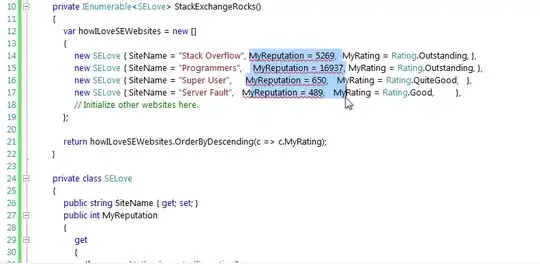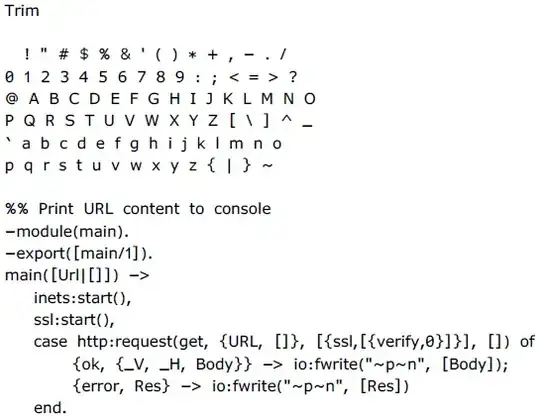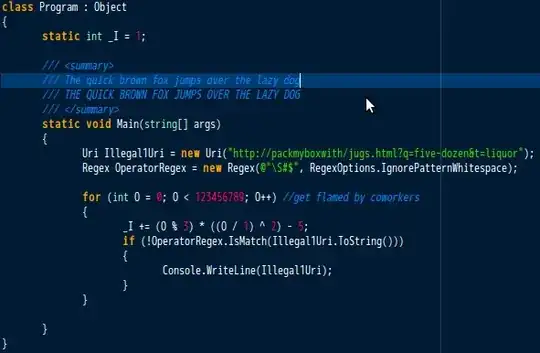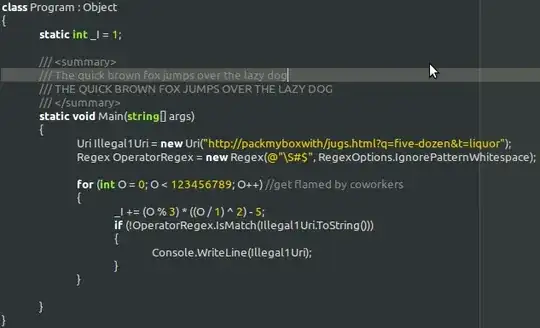
I was reading the wikipedia article on programming style and noticed something in an argument against vertically aligned code:
Reliance on mono-spaced font; tabular formatting assumes that the editor uses a fixed-width font. Most modern code editors support proportional fonts, and the programmer may prefer to use a proportional font for readability.
To be honest, I don't think I've ever met a programmer who preferred a proportional font. Nor can I think of any really good reasons for using them. Why would someone prefer a proportional font?
I like proportional fonts for reading, but I strictly use monospaced fonts for code. Always, always. – Frank Shearar Sep 20 '10 at 08:08
My reason for using a proportional font is very simple. It’s not the 1980s anymore. We’ve moved on from character terminals. Newspapers, books and websites generally don’t use monospace fonts for reasons of readability. I think they have a point. – Timwi Feb 20 '11 at 00:07
• A related challenge is how you deal with Japanese or Chinese characters in source code (comments, strings). They really need to be double-width for readability, but that messes with several monospace assumptions. – Craig McQueen Feb 28 '11 at 01:23
• I honestly don't generally care what font I use - as long as the type is large enough. – Amy Anuszewski Sep 24 '11 at 21:54
It's clearly unpopular, but entirely unnecessarily so. Monospaced fonts suck, and there are better ways to achieve vertical alignment than monospaced. Much better: ever had incompatible tab widths in a file? That's just 70s kind of dumb. – Roman Starkov Feb 28 '12 at 10:34
Verdana 11px is great. – Czarek Tomczak Apr 09 '12 at 15:29
• I like variable width fonts (usually Verdana) and am in that habit for certain languages PHP/Python/VB6. Love the point about elastic tabstops, had my eye on that for years as what would make my font choice work really well, but I don't use it. – zanlok Nov 01 '12 at 07:33
• I use Verdana 11 for all of my coding – David Stone Dec 13 '12 at 03:43
• I use Trebuchet for my coding. I have been using for a pretty long time and I really like it. – Ravi Wallau Jan 22 '14 at 18:47
Designer of Input font makes great points in favor of proportional fonts (but specifically designed for code). – Beni Cherniavsky-Paskin Jun 01 '15 at 11:49
• There's even a monospace version of Comic Sans for people who don't like having others looking at their editor over their shoulder... – Mark K Cowan Jul 30 '16 at 18:48
• I love Googles free Noto Sans. It's very similar to Calibri, but it has distinctly different characters for |, l, I and o, O and 0. I'm still looking for a visual studio plugin that only VISUALLY vertically aligns lists of assignments. – realbart Mar 16 '17 at 17:16
• @realbart • Elastic Tabstops for Visual Studio – Eljay Nov 11 '19 at 15:02
• Closed so can't answer but here's the one good reason I can think of. When defining formatting guidelines, a font agnostic metric for max line length such as an 80 column ruler is not possible with variable width fonts unless the font to be used is also dictated in the guidelines. Wherever this doesn't matter proportional fonts seem equally good. – trss Mar 03 '21 at 18:01
• @Timwi, the reason is even simpler: it's purely subjective which font a person prefers, and you simply happen to subjectively prefer proportional fonts. You arbitrarily chose the goals of 1) Anti-1980s, 2) Following the crowd in screen technology used, 3) Following the crowd in print/web. None of those are objective. – SO_fix_the_vote_sorting_bug Sep 21 '23 at 22:52
Common points against proportional fonts, commented.
• You cannot precisely align code vertically with proportional fonts. I mean, you could precisely align code vertically with proportional fonts, if everybody was using elastic tabstops, but alas...
• Some proportional fonts make it hard to distinguish some characters groups. (e.g., mrnm). Not all programming fonts are perfect either, however: Courier New has identical 'O' and '0' and identical '1' and 'l'.
• Some IDEs have poor support for non-fixed-width fonts (like aforementioned Visual Studio or Python's IDLE). In some contexts, also, you just can't use one. (e.g., terminals.)
• Choosing a proportional font for coding will get you in endless holy wars. Here, however, the problem exists between the keyboard and the chair.
Points in favour of proportional fonts
Personally, I've been using both the 'Ubuntu' font and WenQuanYi Zen Hei Mono with pleasure and find myself unable to prefer one to the other. :)
• One proportional font I know that has unambigous 0Oo1lLiI is TeX's "Latin Modern Mono Prop", a proportionally spaced relative of "Latin Modern Mono" which was absolutely designed for code (for print not screen, though, I find the rendering a bit blurry). Punctuation is still a problem, has too little spacing for its importance in code IMHO, and creates ambiguties e.g. two single quotes vs one double quote: '' vs ", '' vs " – Beni Cherniavsky-Paskin Dec 15 '16 at 15:41